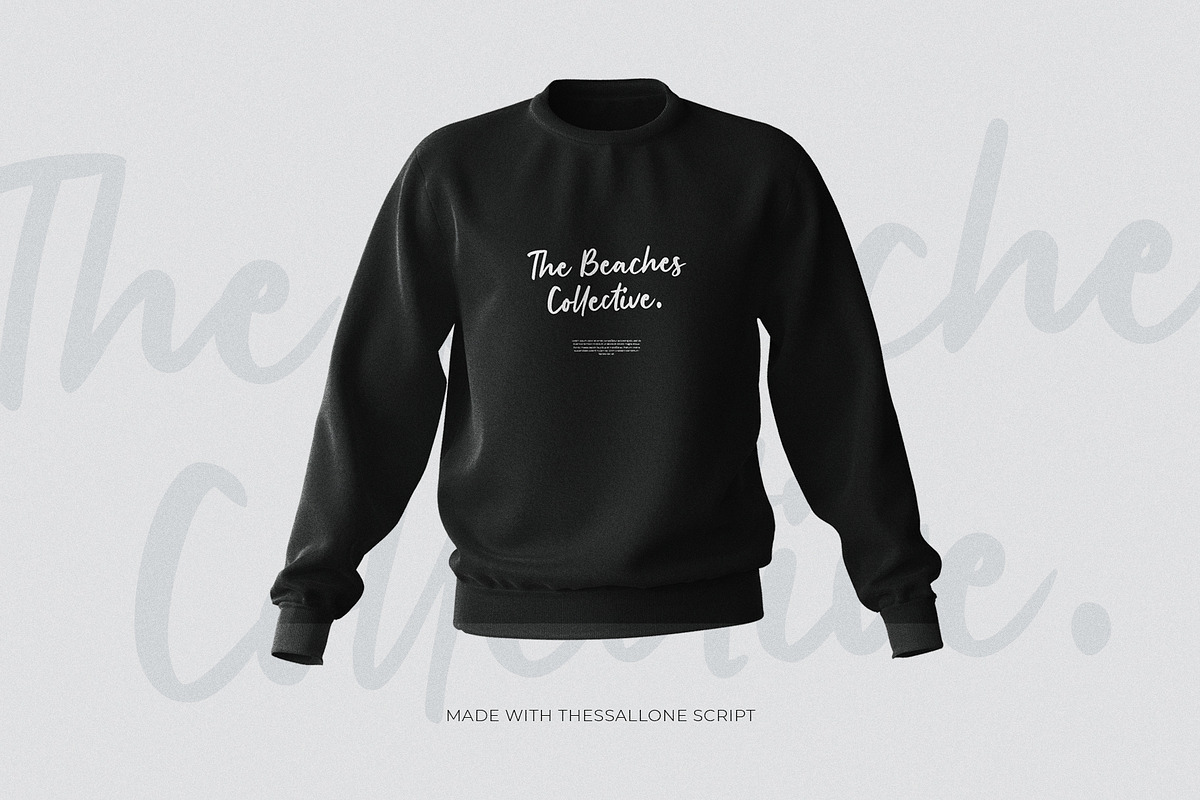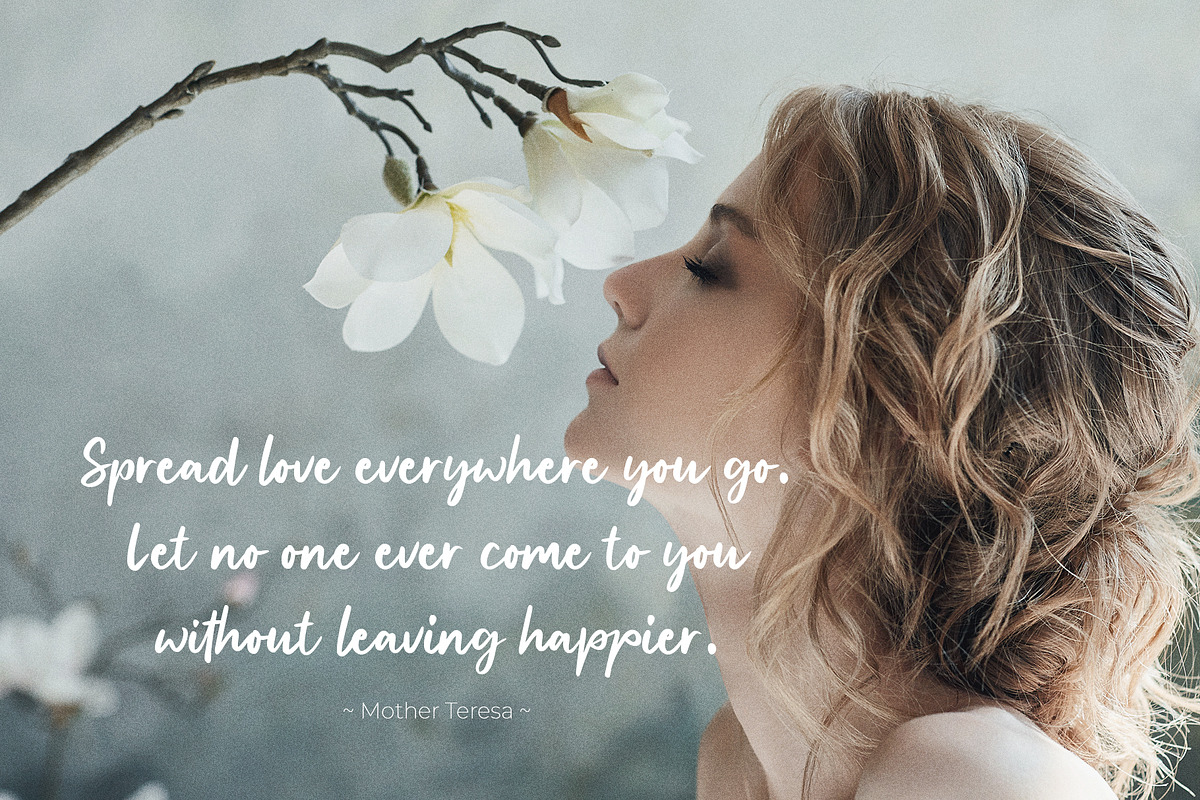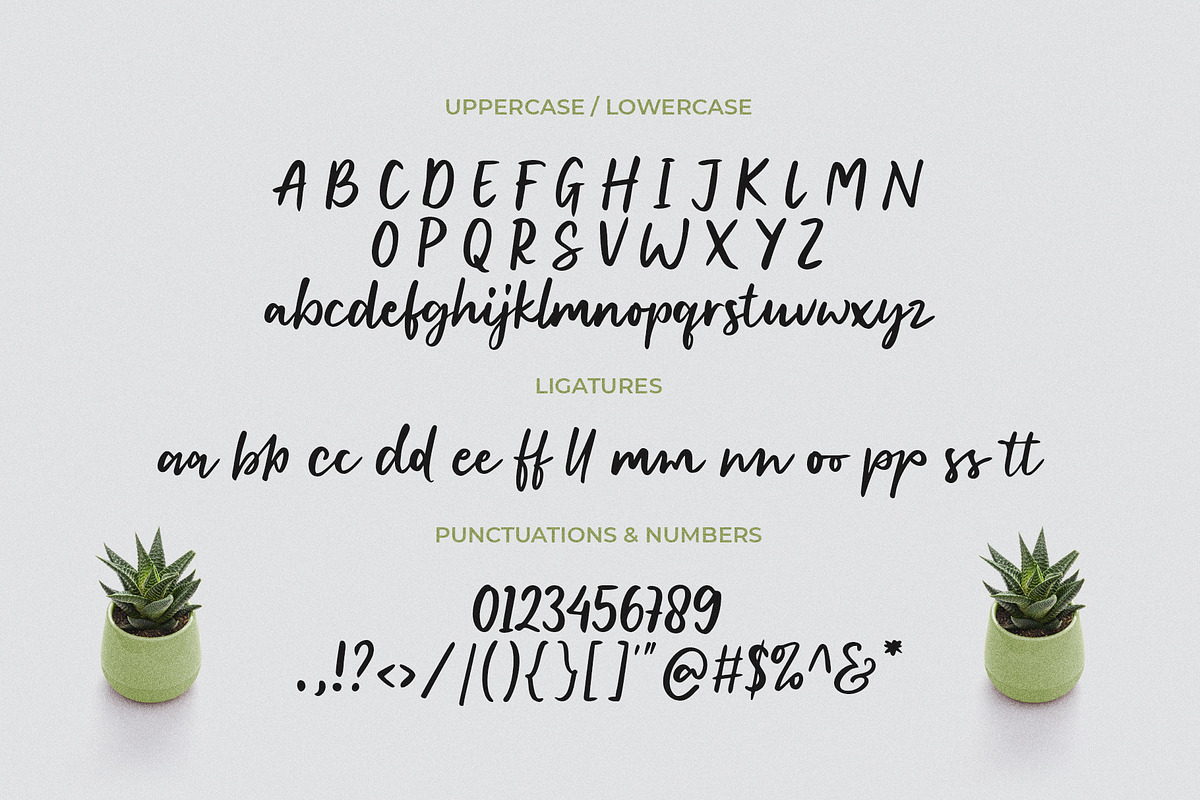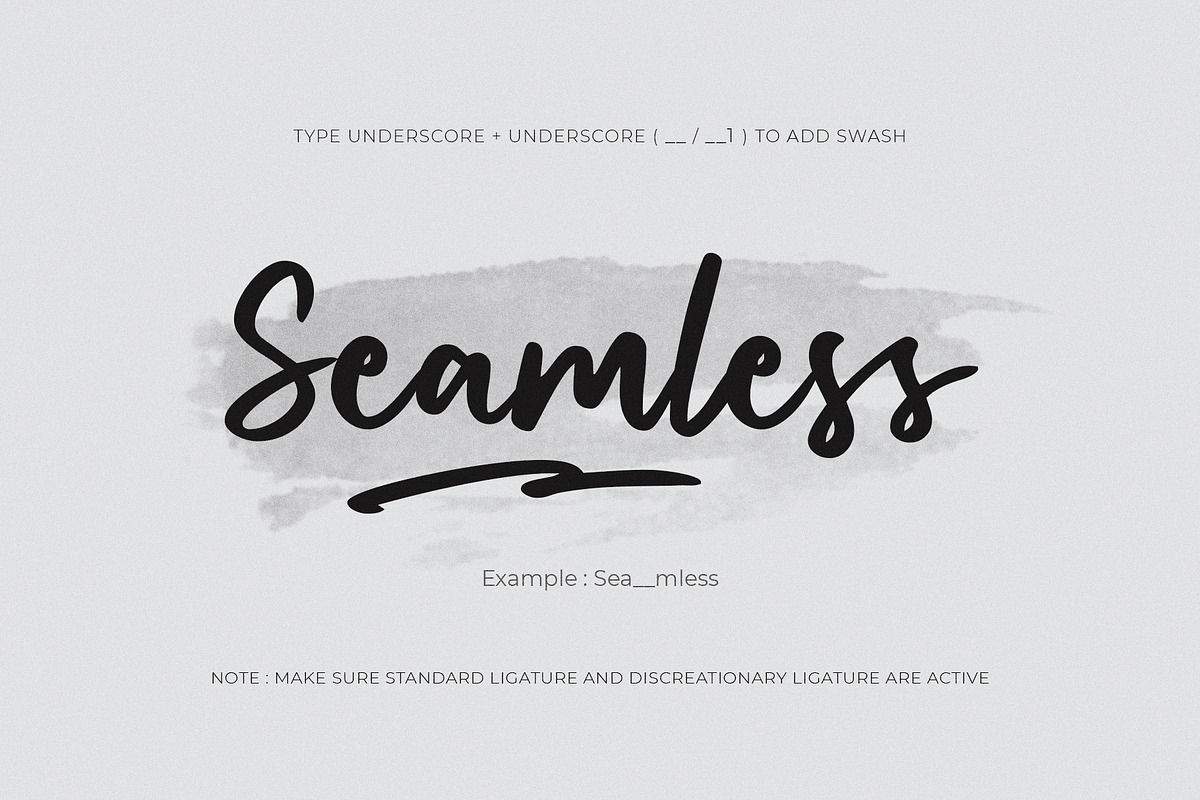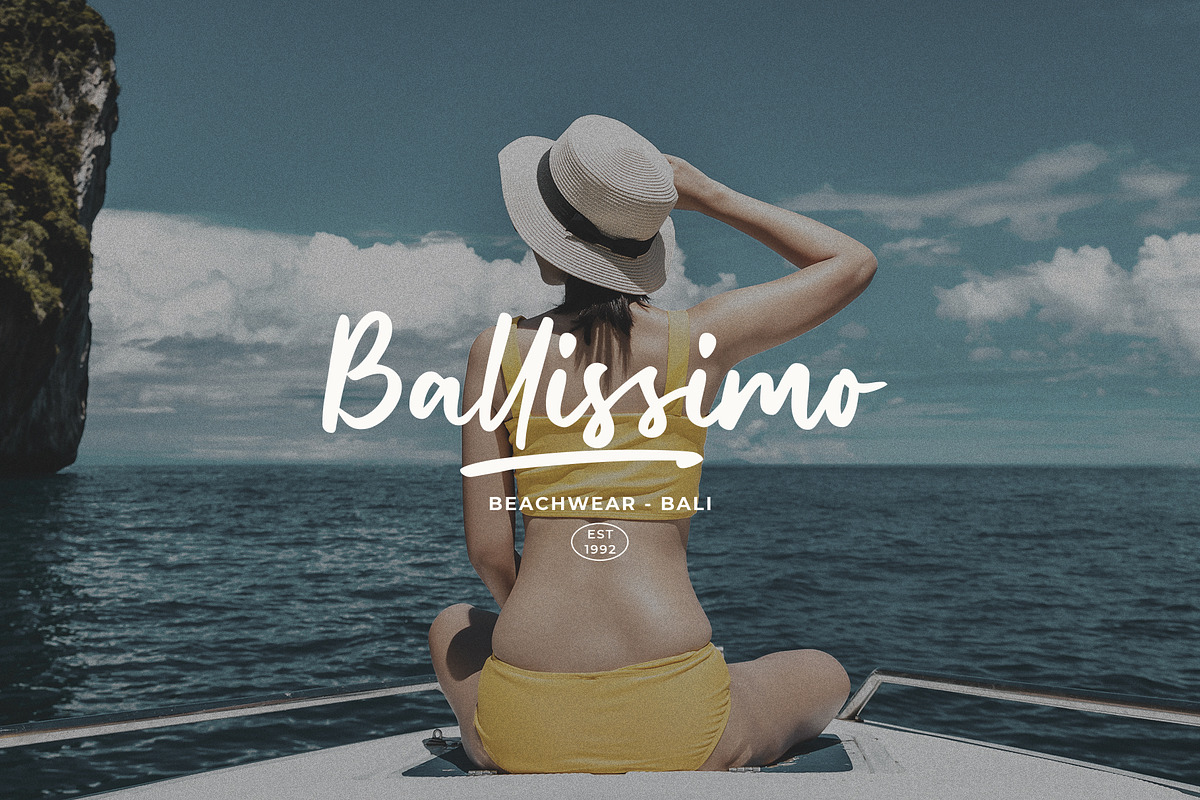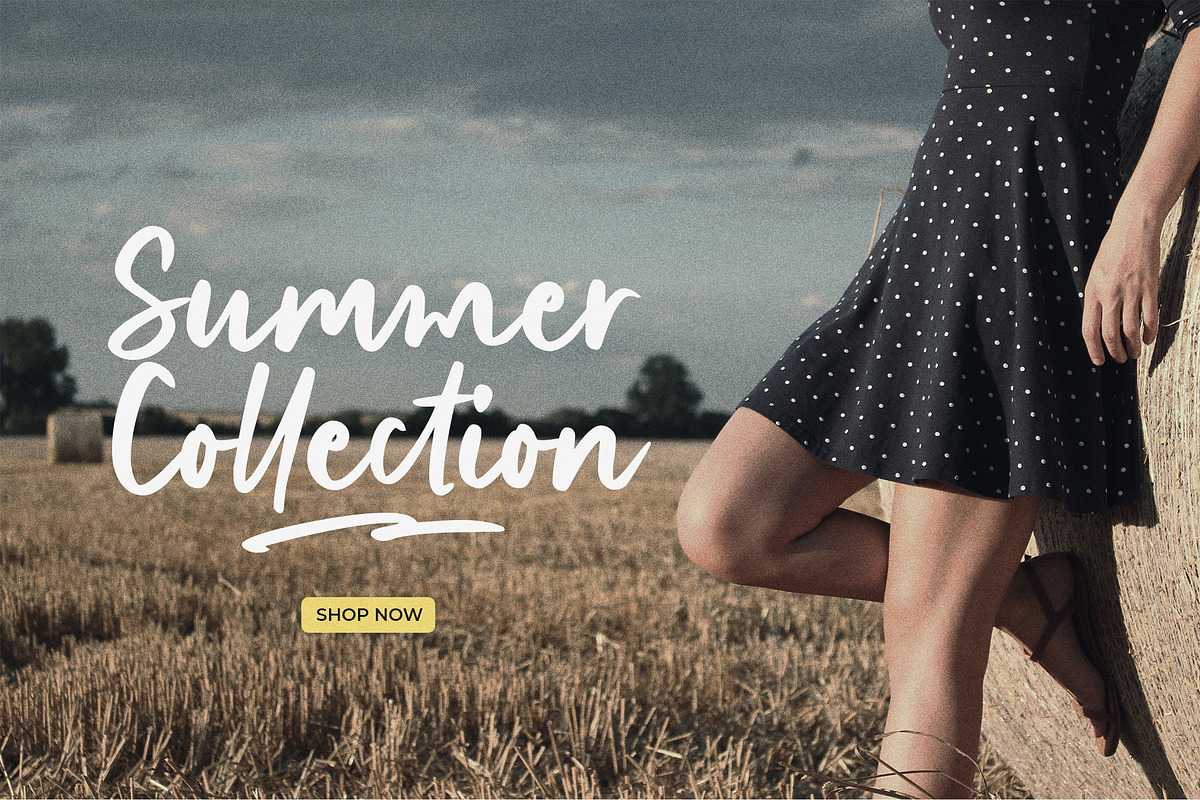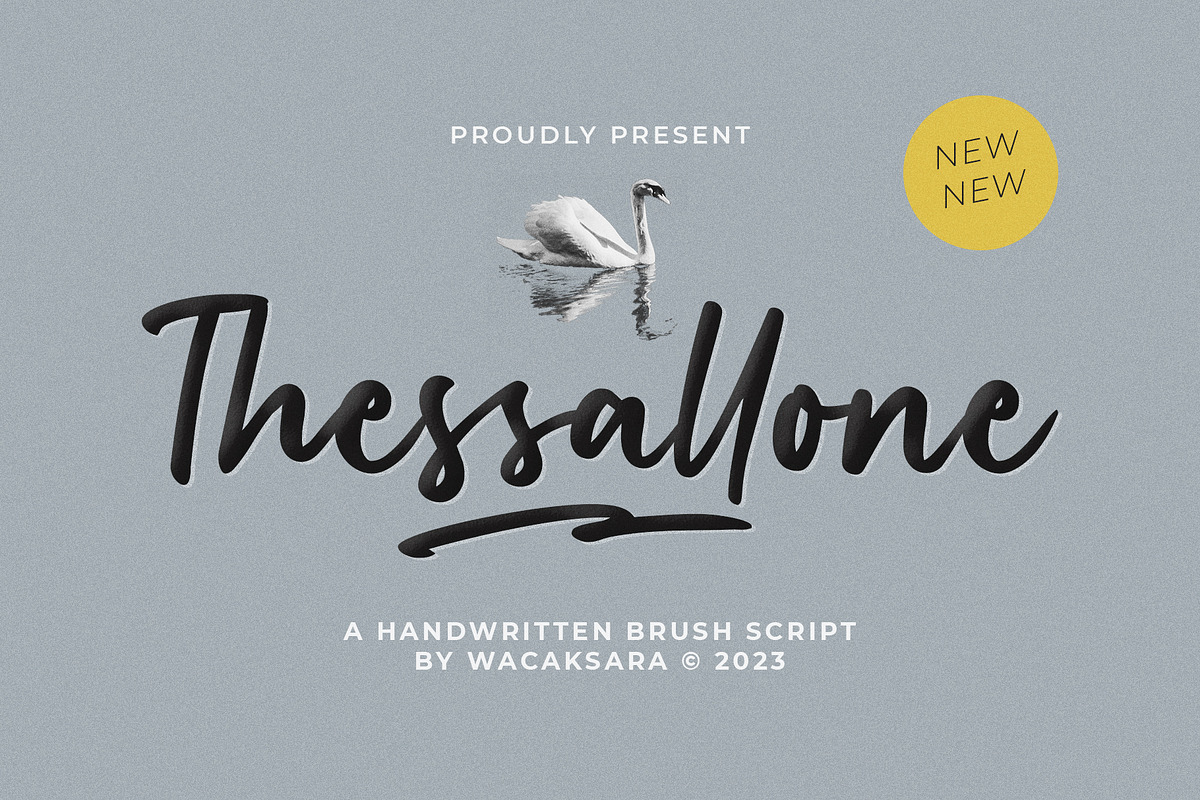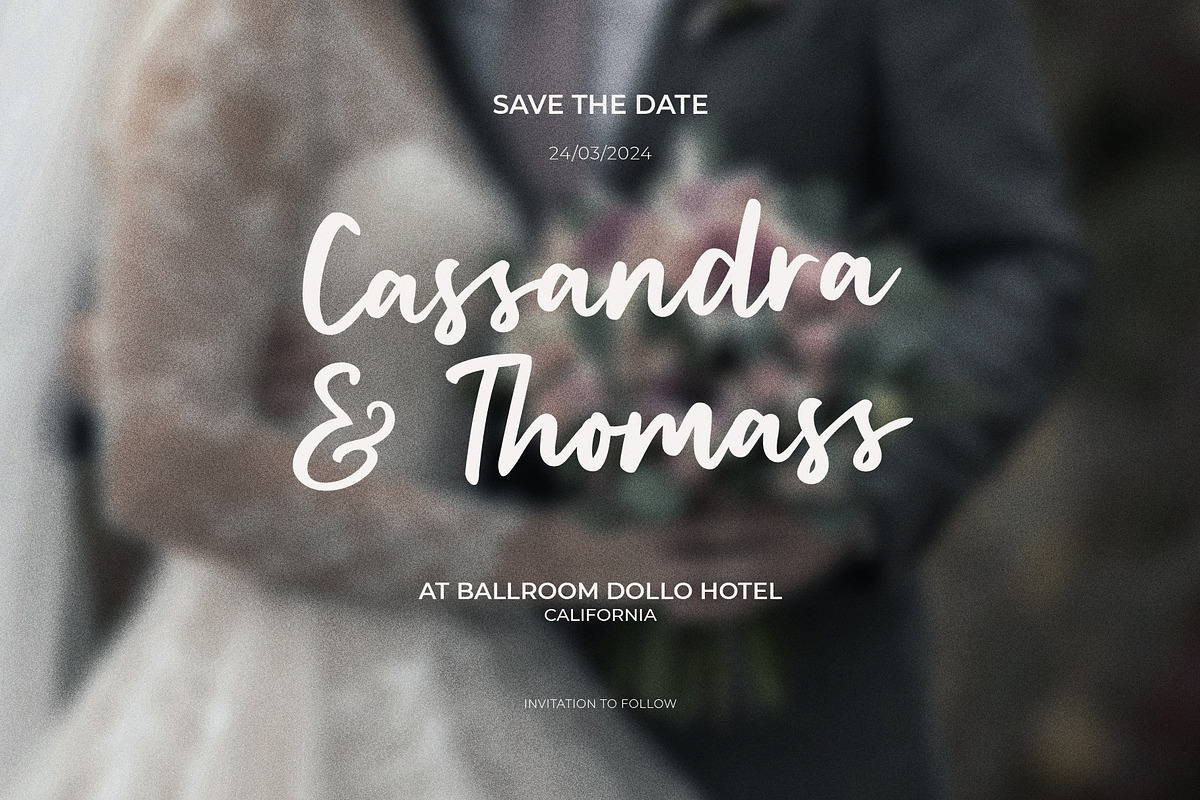
Thessallone - A Handwritten Script
Thessallone is a handwritten brush script font. Perfect for adding a unique impression that looks natural like manual handwriting when opentype is active. This font is great for your next creative project such as Logotype, printed quotes, invitations, cards, product packaging, headers, letterhead, poster, apparel design, label, book cover and etc.
Thessallone comes with uppercase, lowercase, numerals, punctuations and so many ligatures variation to let you customise your designs.